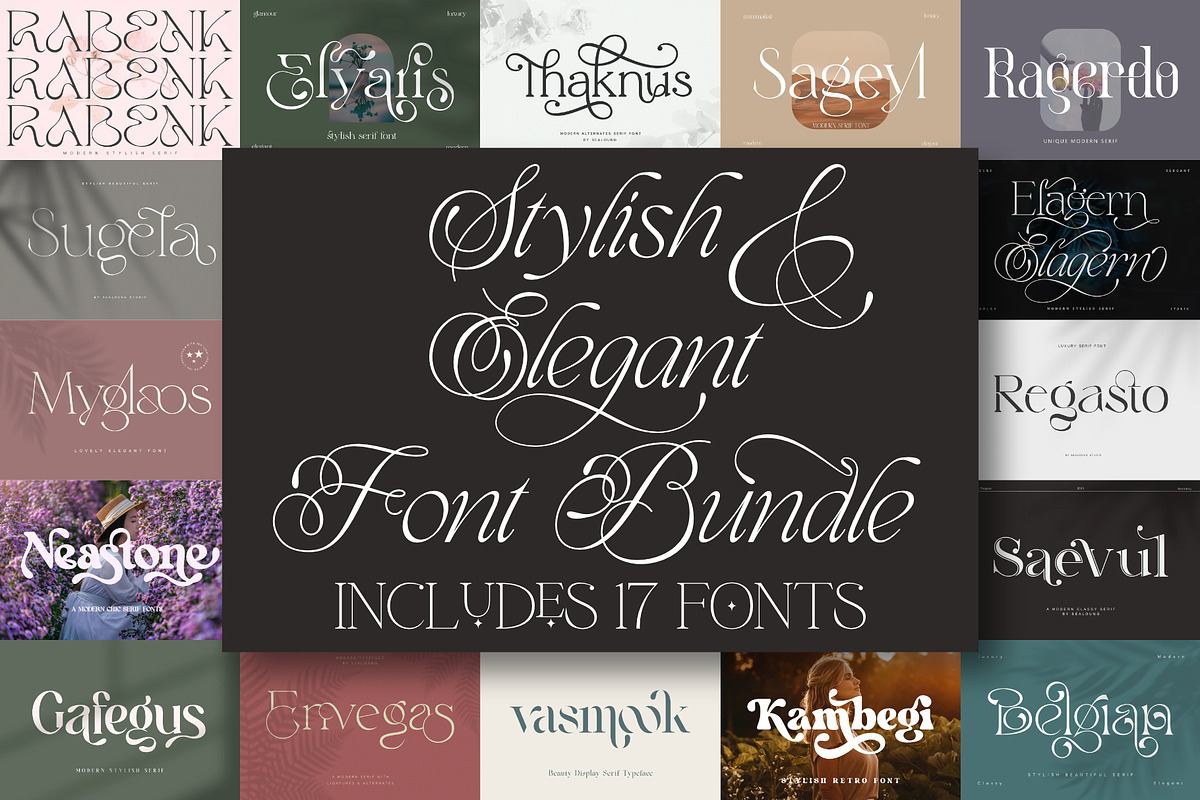
Stylish & Elegant Serif Font Bundle Free Download
The Stylish & Elegant Serif Font Bundle Free Download is a premium collection of sophisticated serif typefaces, perfect for fashion branding, editorial layouts, luxury packaging, wedding invitations, and high-end digital content. Each font in this bundle is designed with precision, offering clean lines, classy serifs, and a modern twist on timeless typography.
Whether you're building a visual identity for a luxury brand or creating standout social media posts, this bundle provides a versatile toolkit for refined design. It includes multiple weights, alternates, ligatures, and multilingual support—ensuring that your projects not only look elegant but also feel complete and professional.